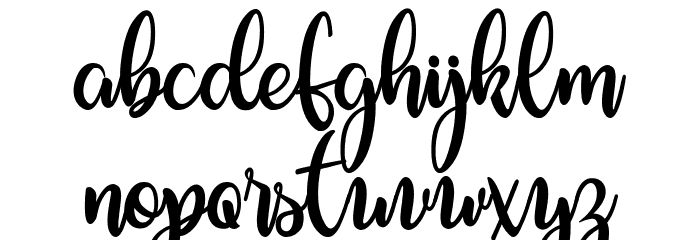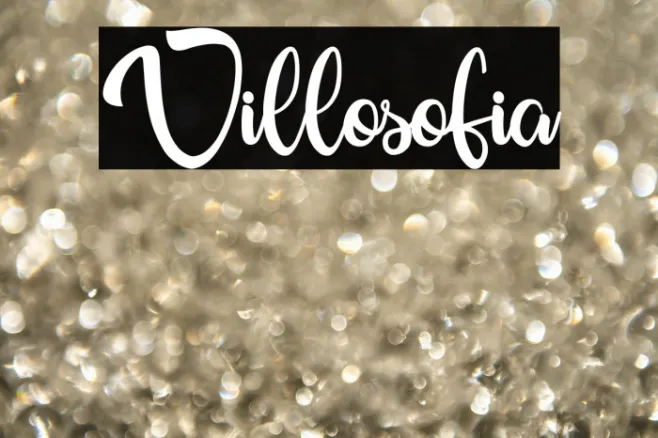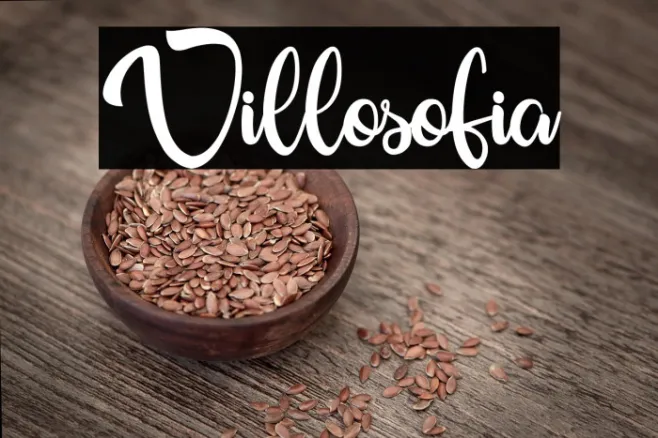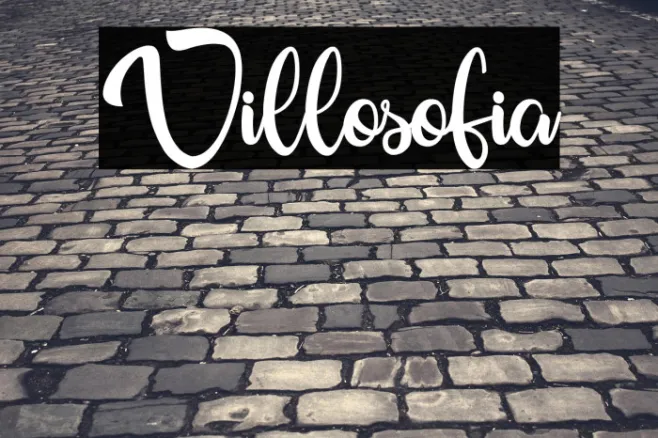
Villosofia Font
This font exudes a playful and elegant script style, characterized by its fluid, cursive strokes and a sense of movement. The uppercase letters are bold and expressive, with dramatic loops and swirls that add a touch of flair. The lowercase letters maintain a consistent flow, with smooth connections between each character, enhancing the script's readability. Numbers and special characters are designed with the same attention to detail, ensuring a cohesive look across all elements. The overall appearance is both stylish and approachable, making it suitable for a variety of creative applications.
A playful and elegant script font with fluid, cursive strokes.
- Proposed Projects: Ideal for wedding invitations, greeting cards, branding, and social media graphics.
- Use Case: Logos, Headlines, Invitations